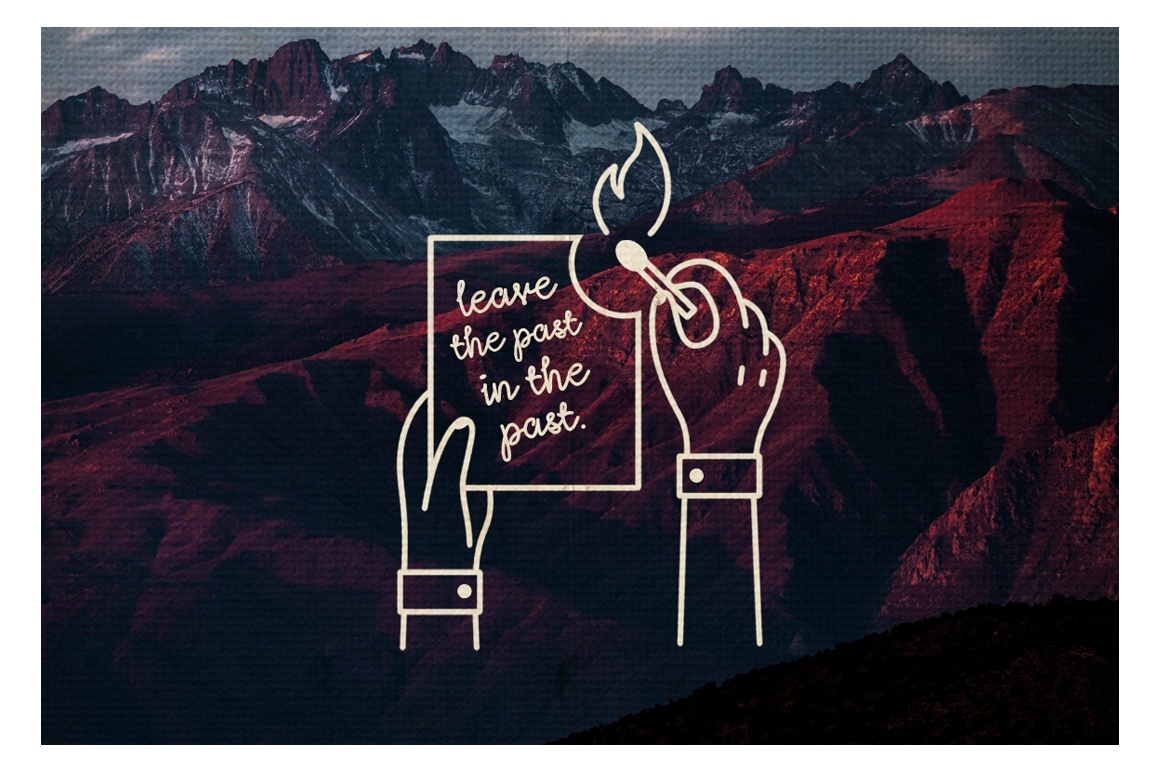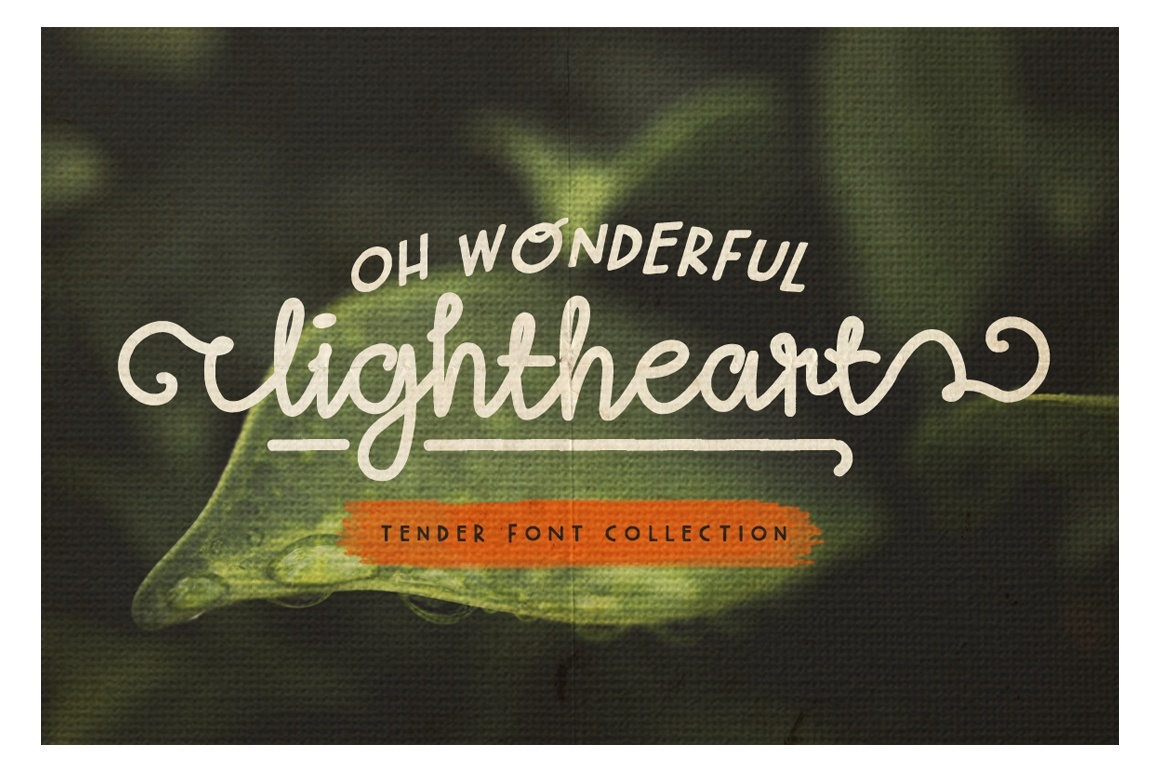
Lightheart Font
Comes with a Sans Serif font called Oh Wonderful.
Lightheart – with regular and script versions. The even baselines and nice curves make it the Lightheart. Made to provide a simple, basic output with a great appeal. The swashes are found on these keys: (), {}, <.